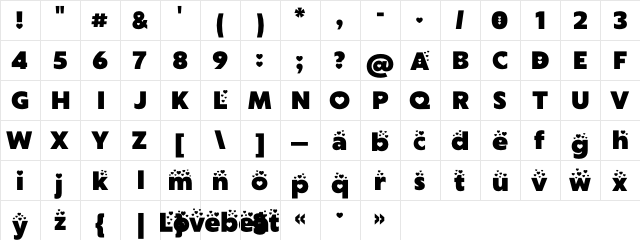
Lovebeat Regular
| Foundry | Anita J߲geleit - Type Design |
| Designer | Anita J߲geleit - Type Design |
Design Context for Lovebeat Typeface
Lovebeat is a composed and adaptable typeface that performs quietly and consistently across a wide range of design contexts.